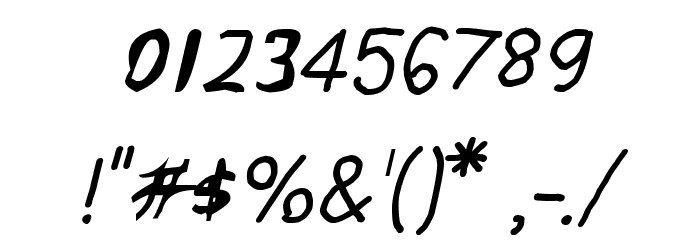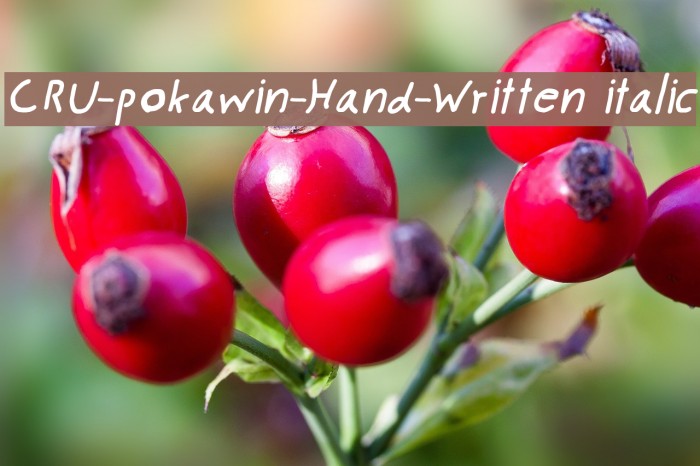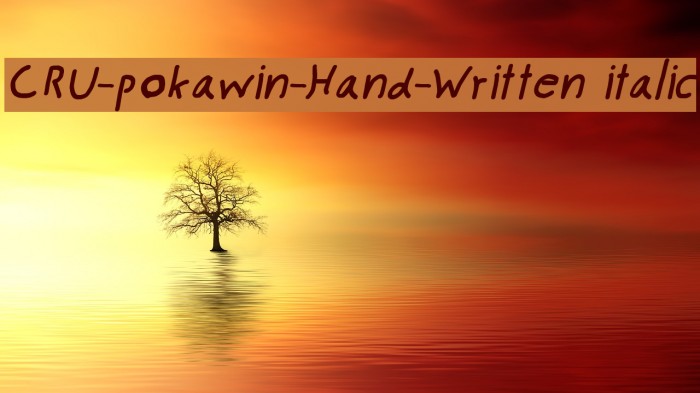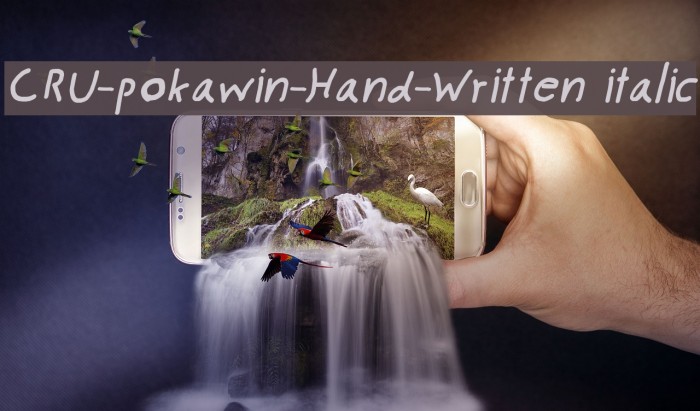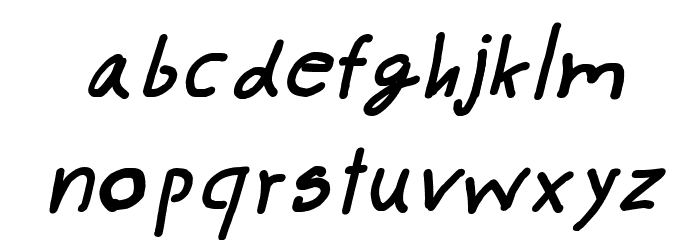
CRU-pokawin-Hand-Written italic Font
This font exhibits a casual, hand-drawn style with a playful and informal appearance. The letters are slightly slanted, giving it an italicized look, while maintaining a consistent flow throughout. The strokes are uneven, mimicking the natural imperfections of handwriting, which adds to its charm. The uppercase and lowercase letters are well-proportioned, and the numbers and special characters maintain the same whimsical style. This font is ideal for projects that require a personal touch, such as greeting cards, invitations, or creative branding materials.
A playful, hand-drawn italic font with a casual, personal touch.
• Proposed Projects: Ideal for greeting cards, invitations, personal branding, and creative projects.
• Overall Style: Casual, Playful